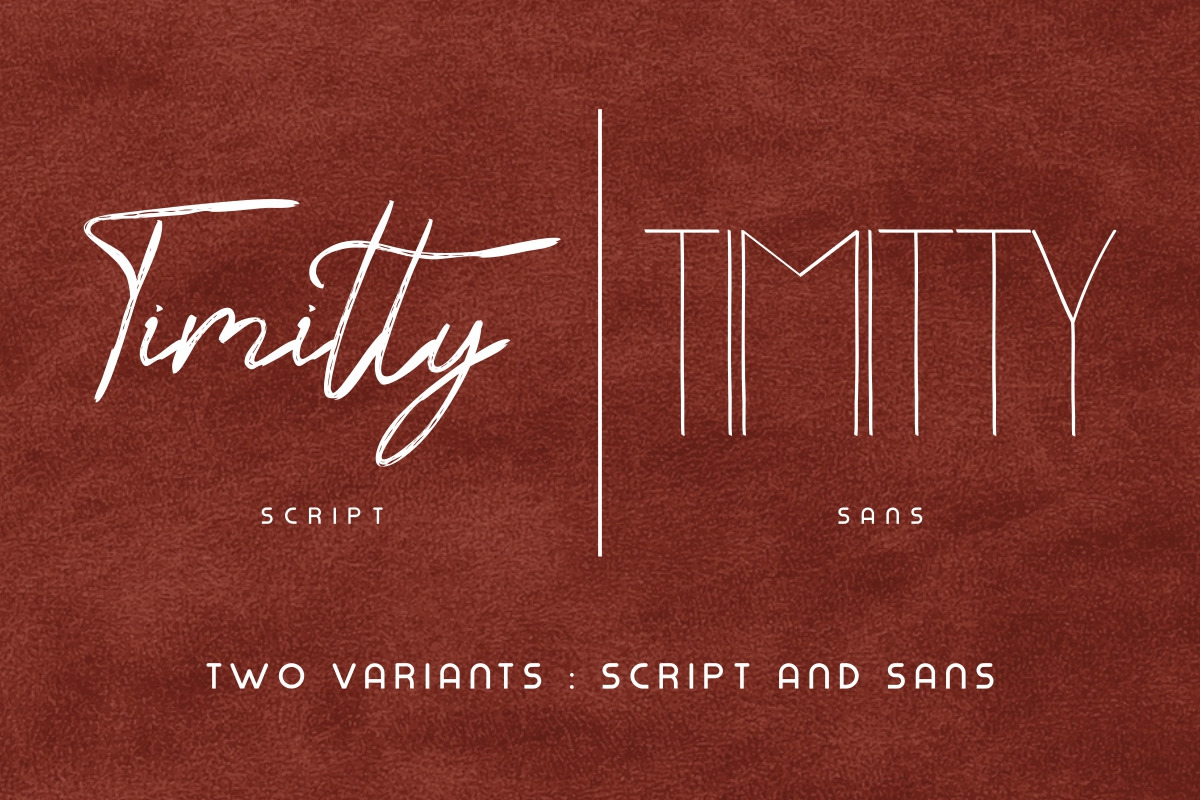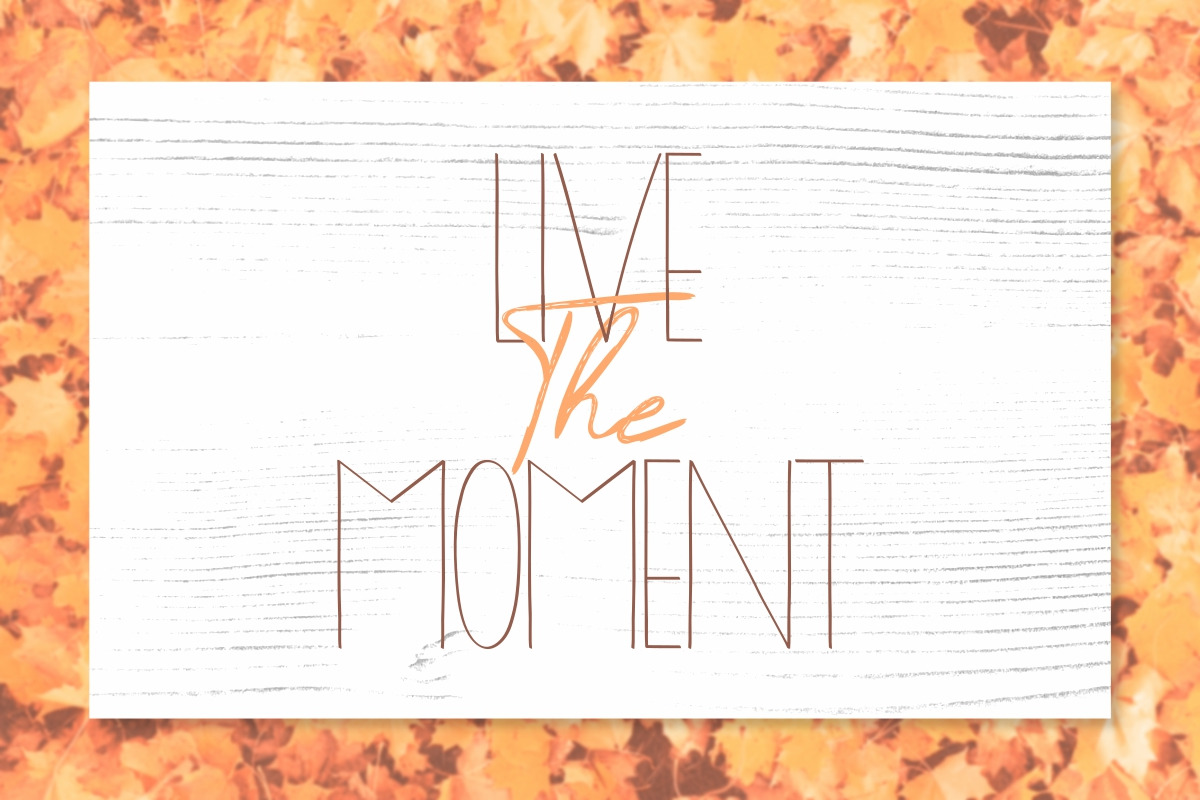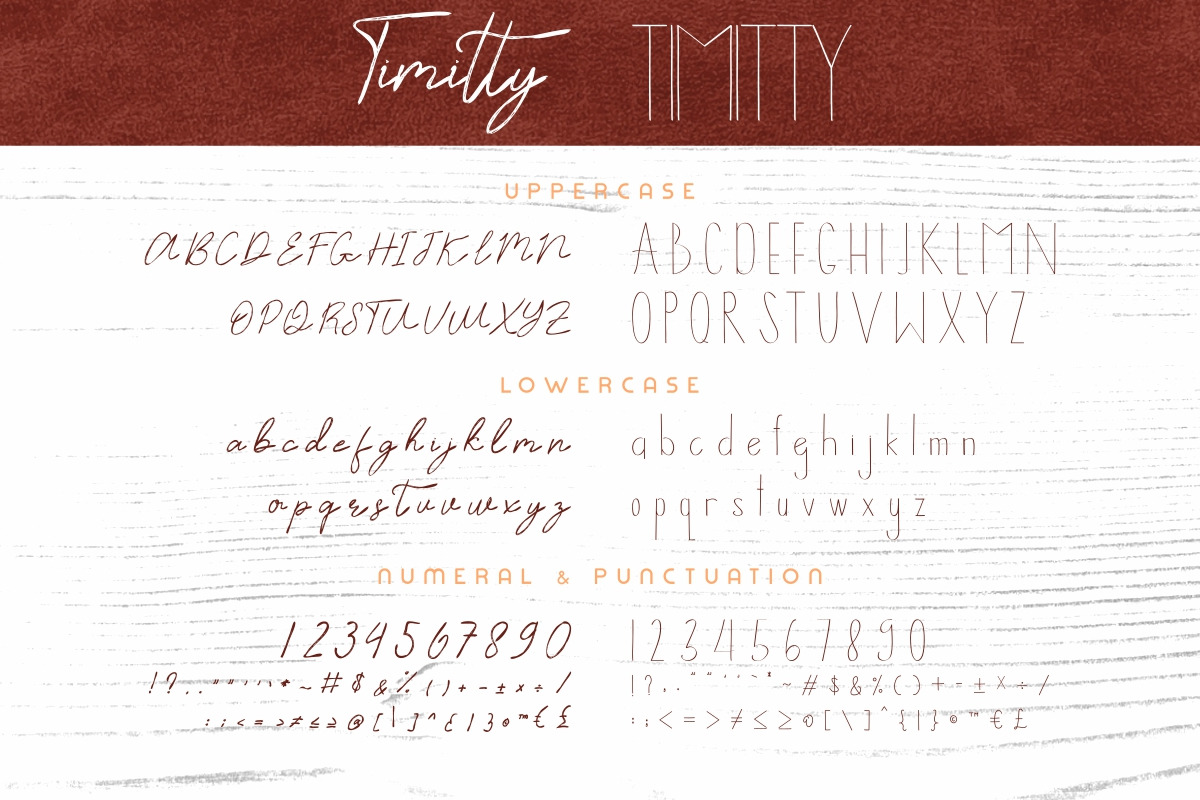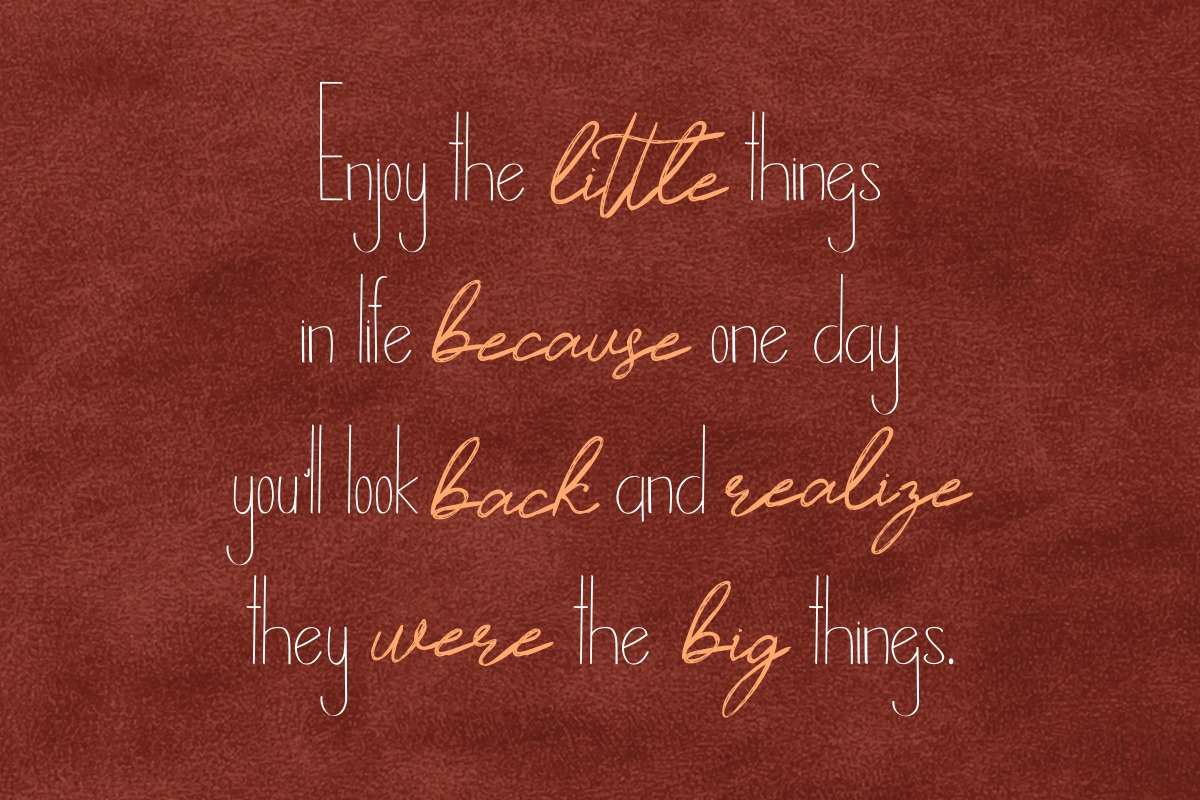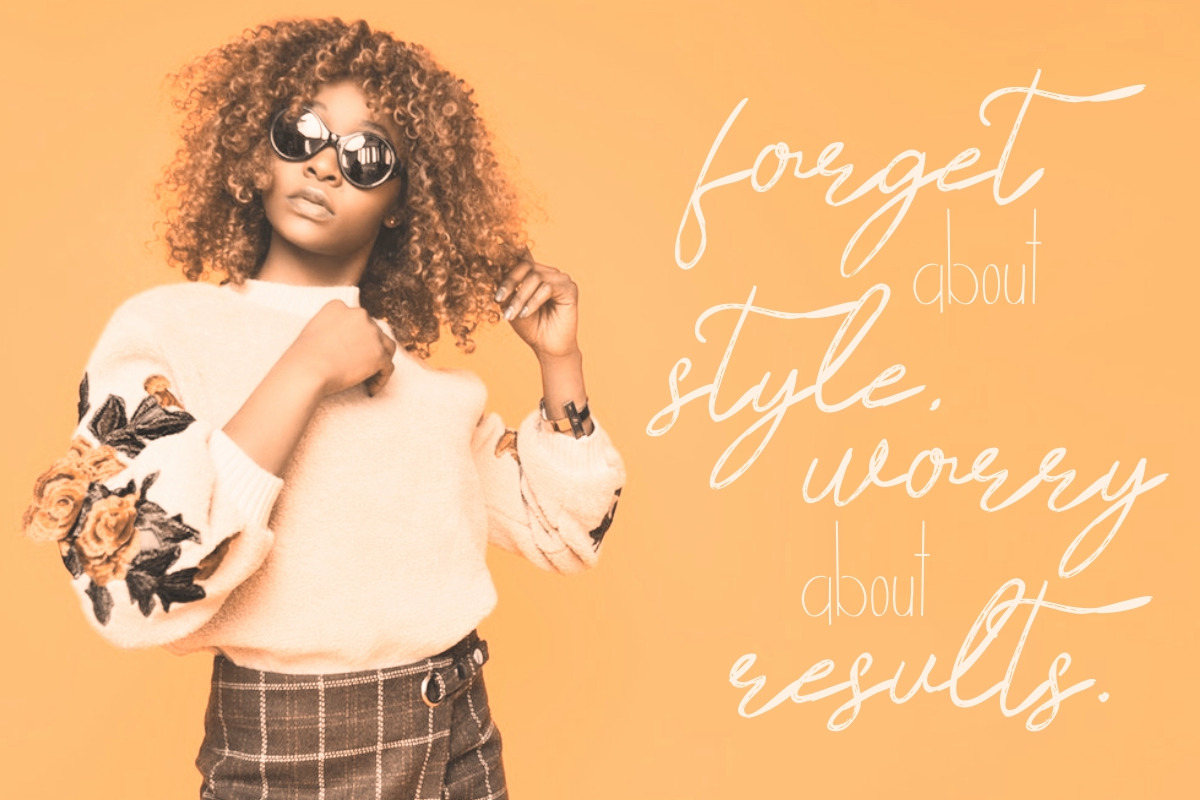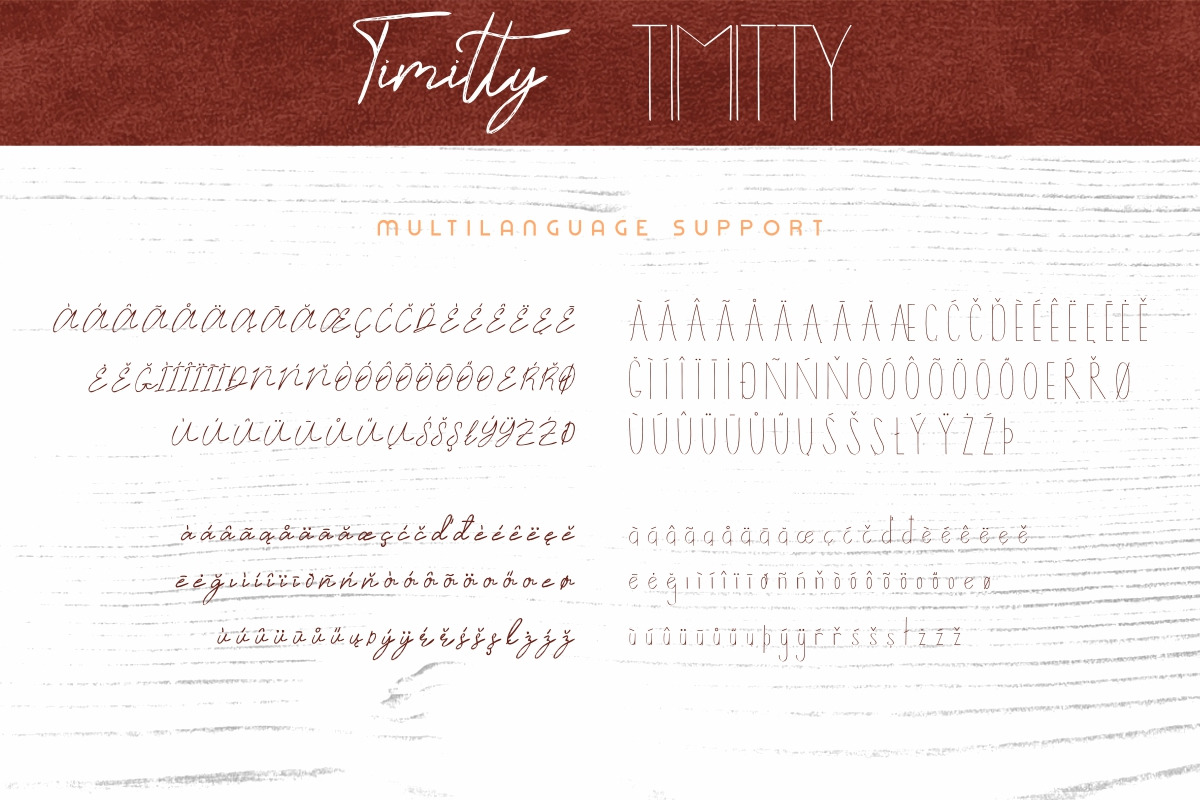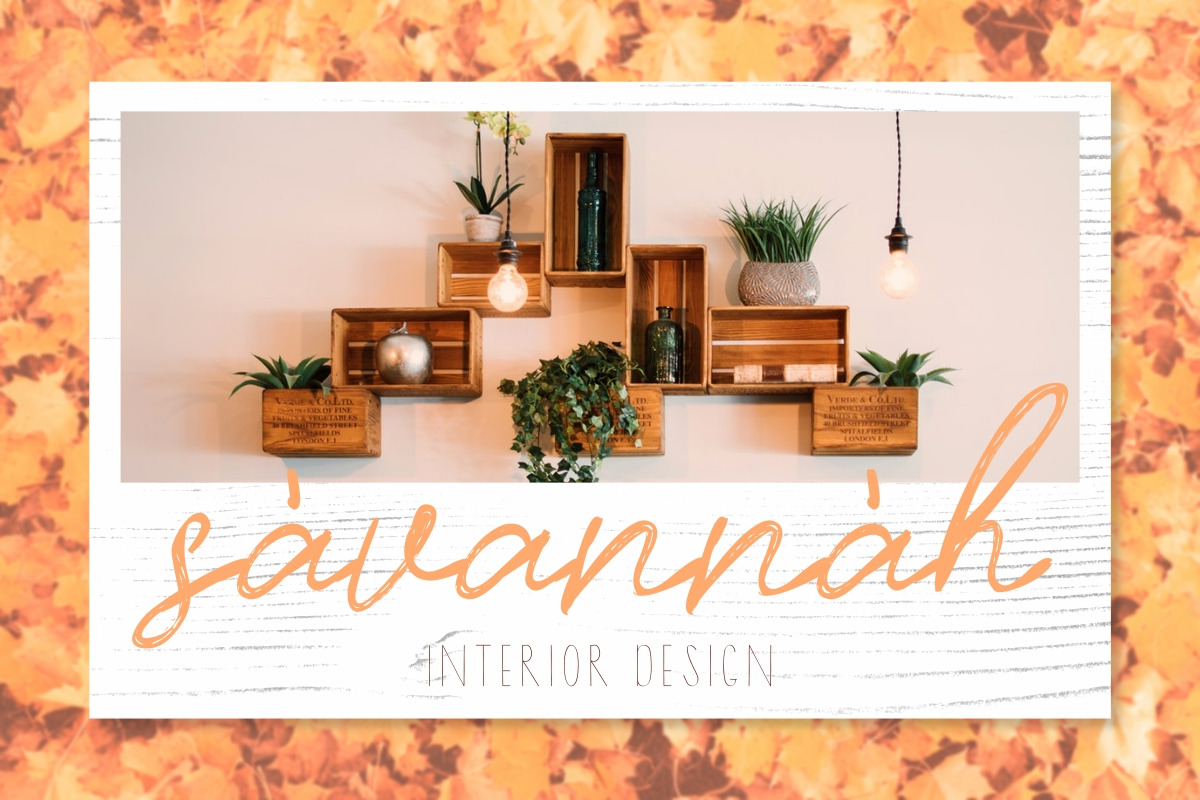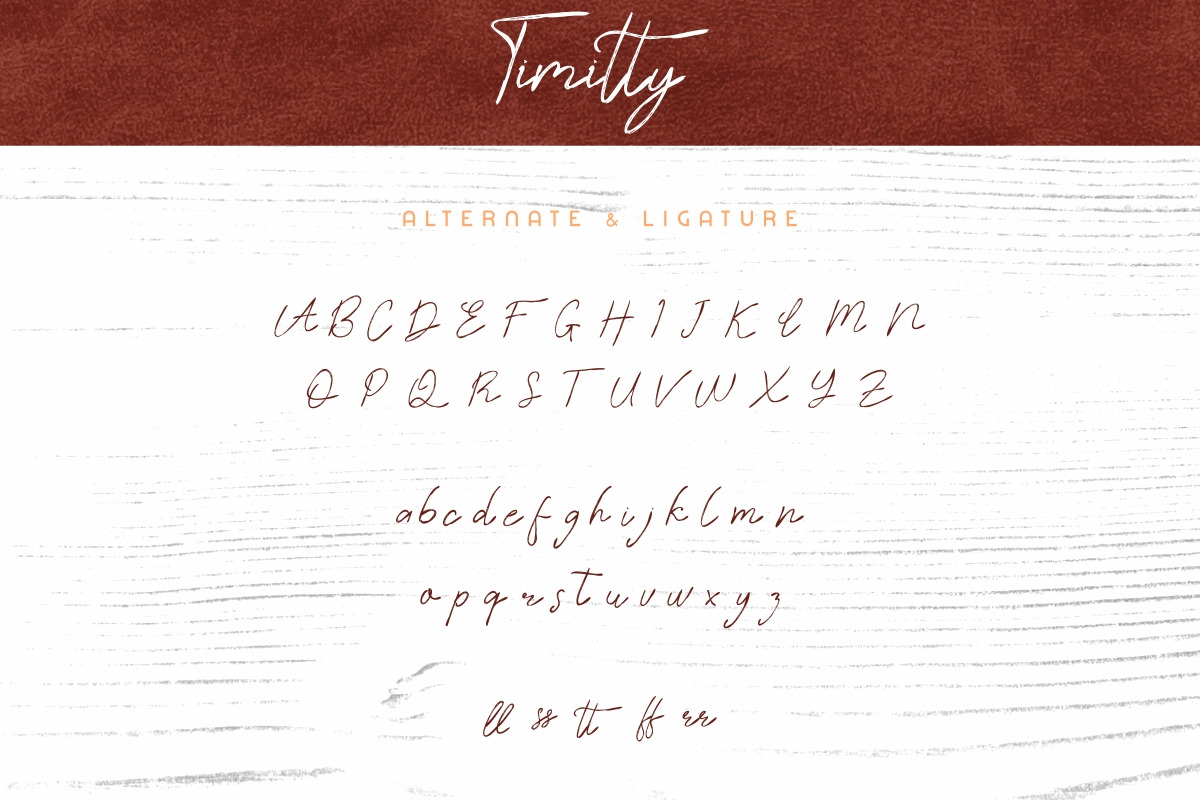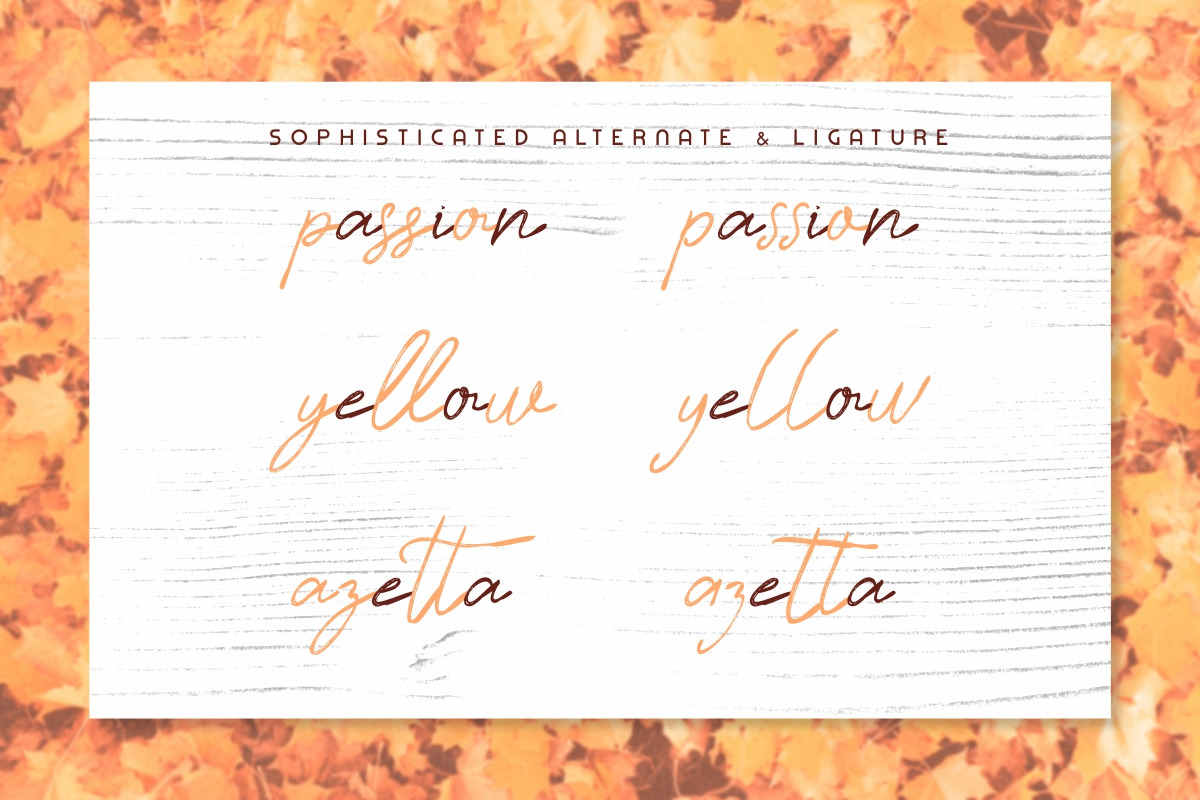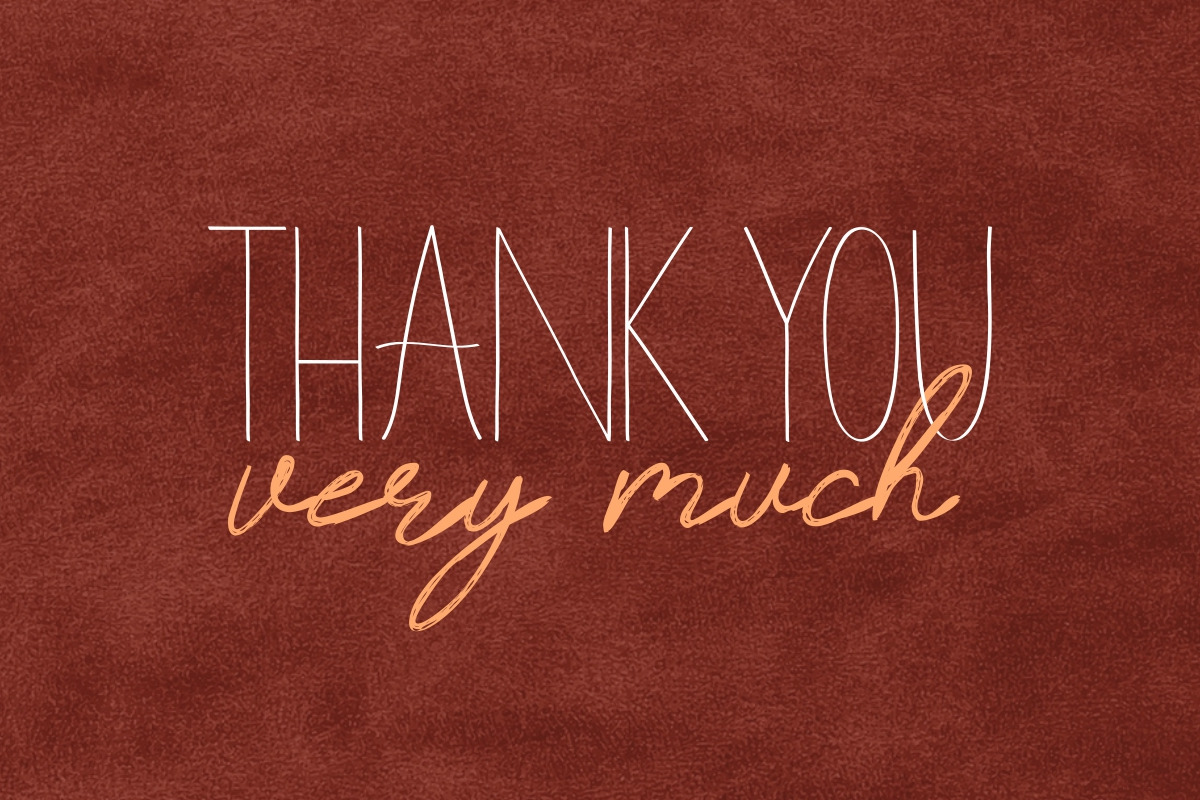
Timitty Font Duo
Hola Netizens, Please welcome Timitty Font Duo. New font family from EdricStudio.
Timitty Font Duo is a two in one font family. It has two different styles: display sans and Calligraphy script. It was made in Bandung on 2019.
Timitty Font Duo will work well on all industries : law firm, gardening, makeup artist, musician, florist, architect, real estate, interior design, cafe, etc.